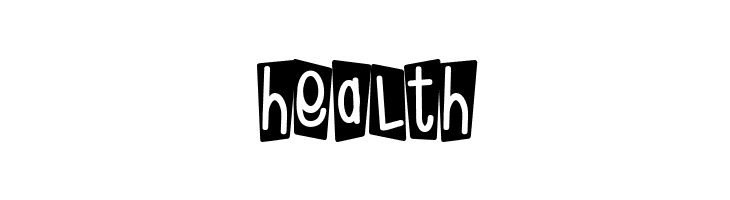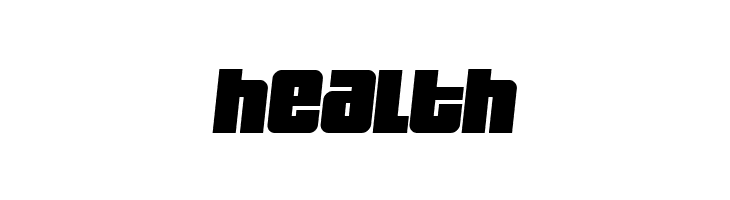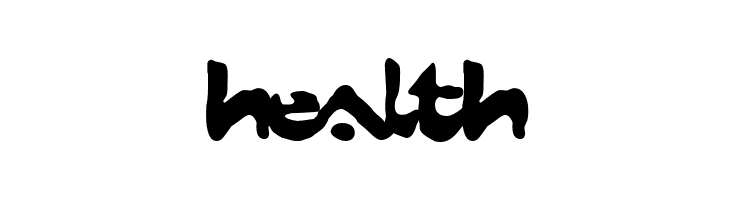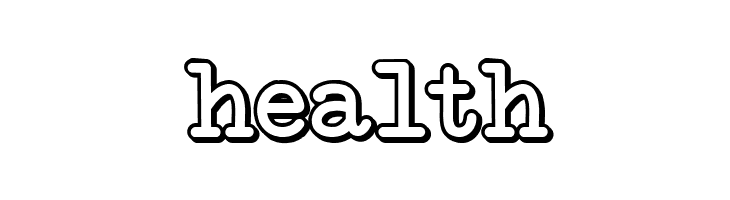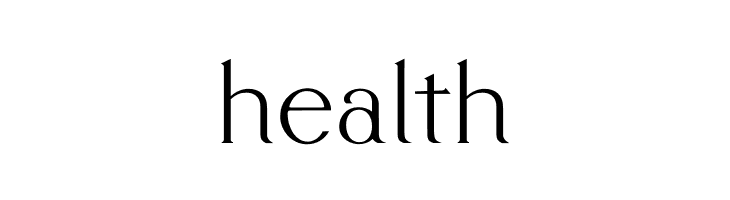
Dust Mites Font
Font by Scott Dieznyik - Kejak (formerly Cheops)
A bold, artistic script font with fluid, interconnected strokes and high contrast.
KlinkOMite Font
Font by www.fontalicious.com
A playful, bold font with characters in tilted rectangles, ideal for dynamic designs.
FineOMite Font
Font by www.fontalicious.com
A bold, rounded, and playful font with a blocky design.
KR Lil Mites Font
A whimsical, cartoon-like font with playful and exaggerated characters.
Mitesser 3D Regular Font
A bold, 3D distressed font with a rugged, industrial look.
Mitesser Regular Font
A bold, distressed font with a textured, rugged appearance.